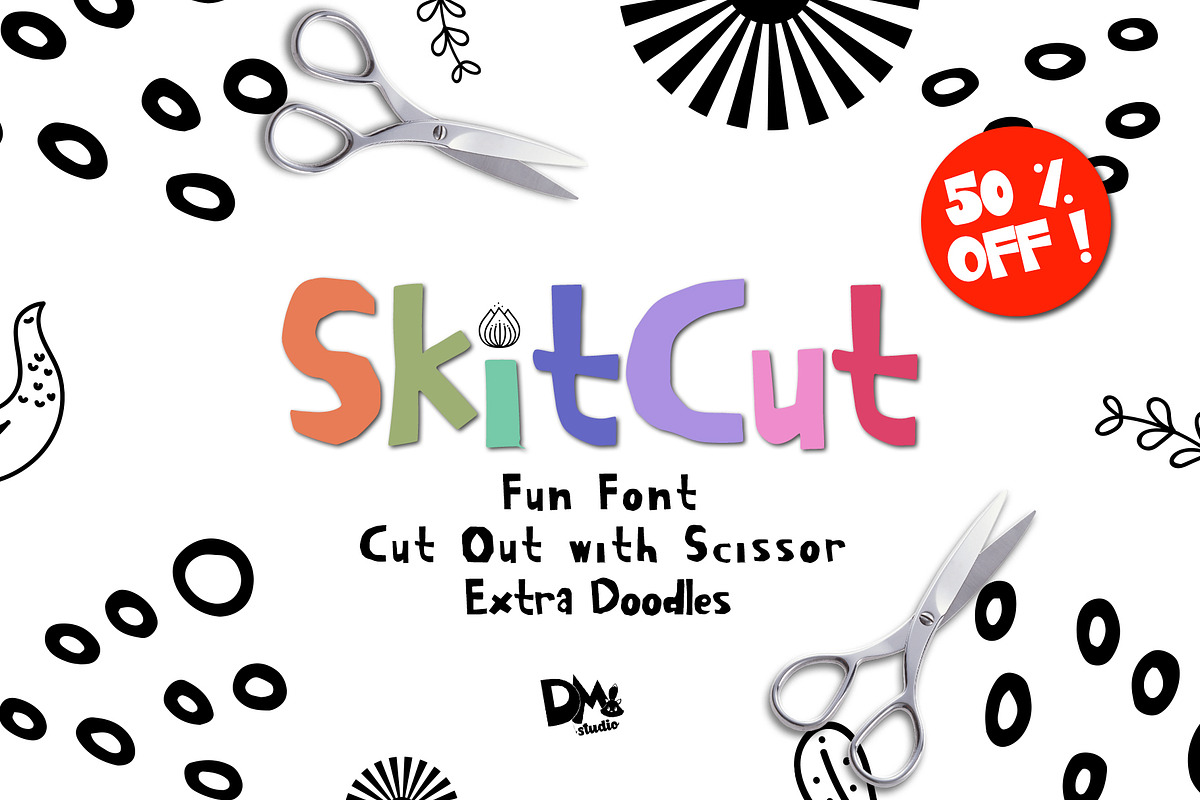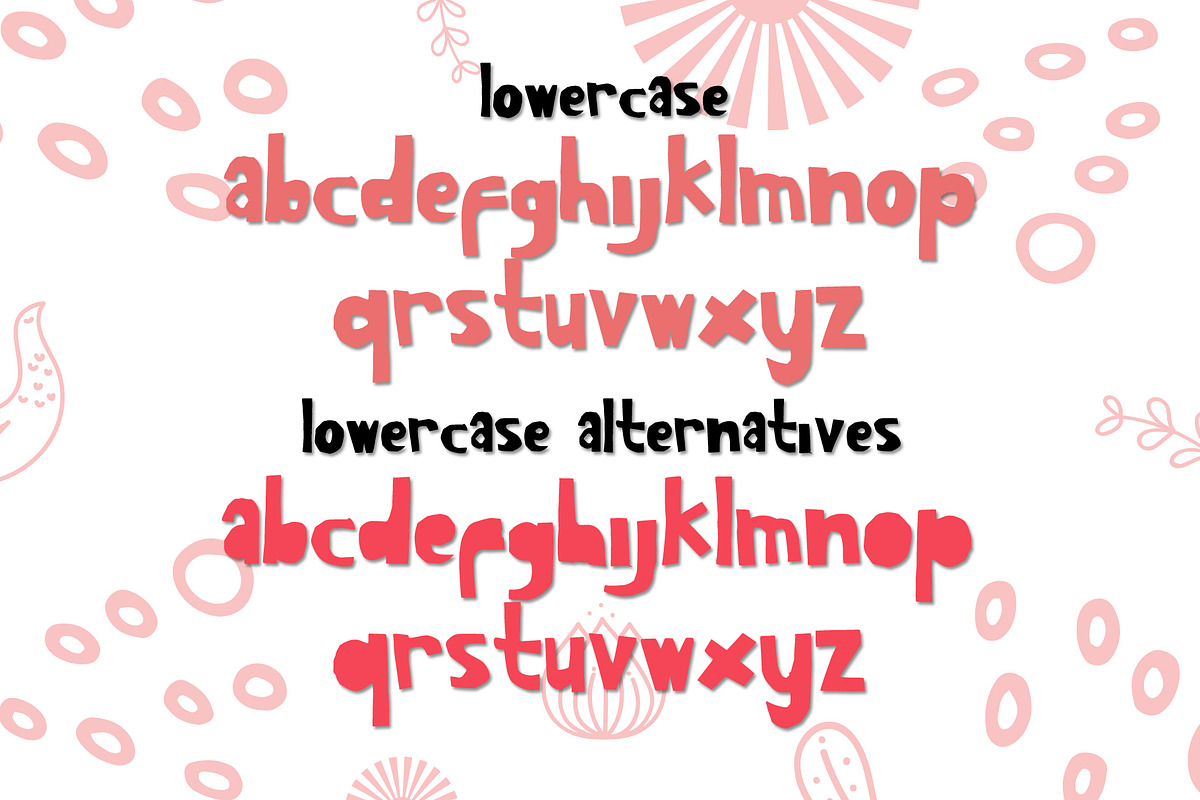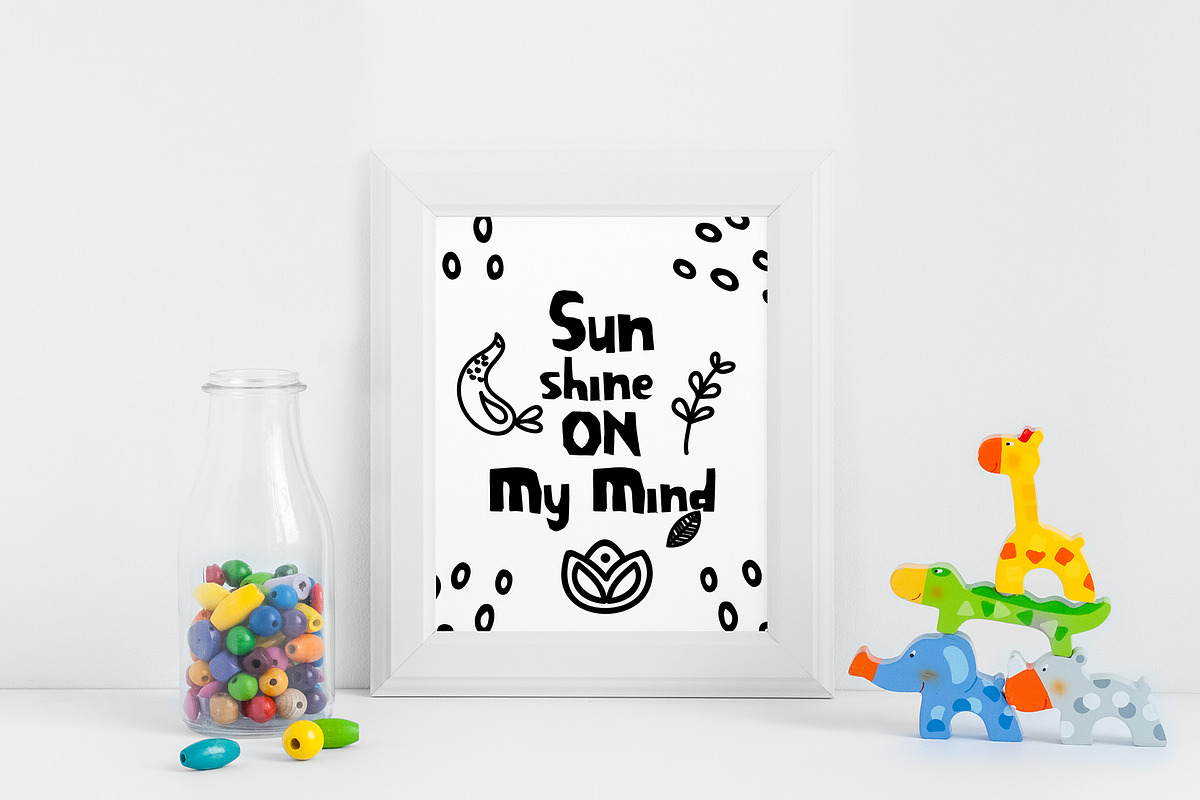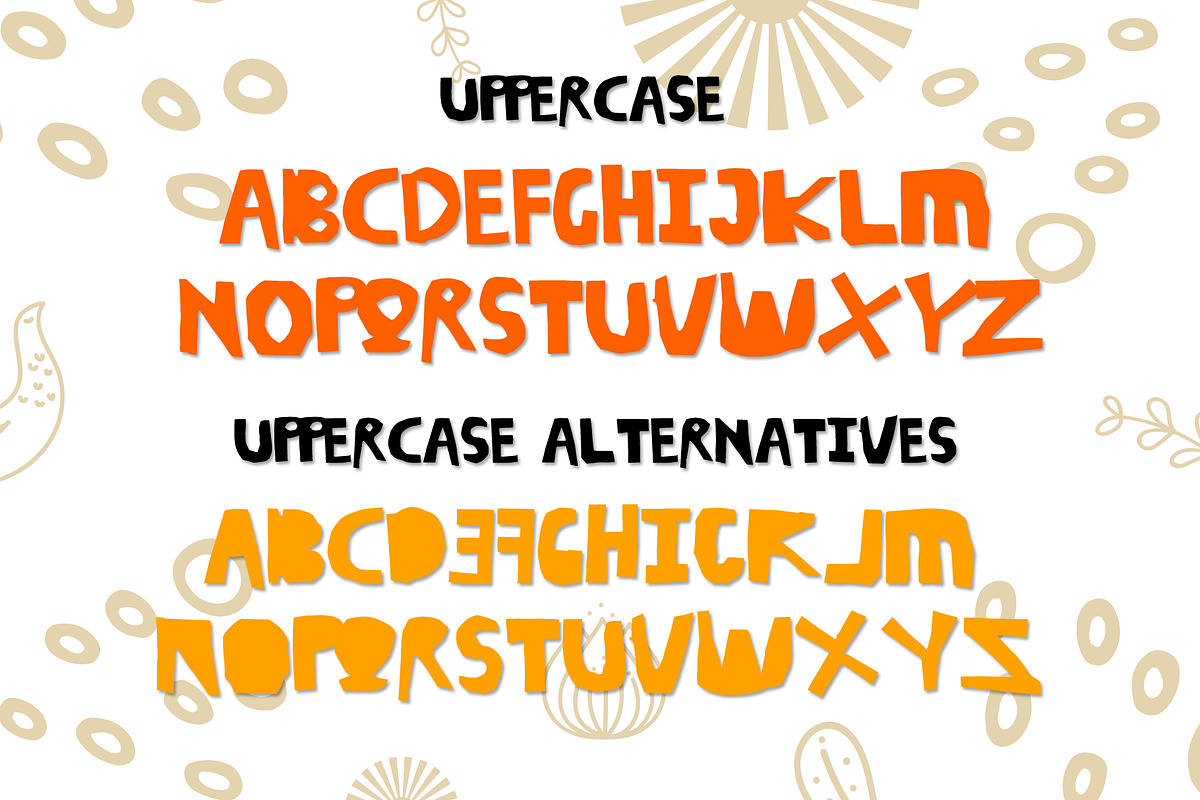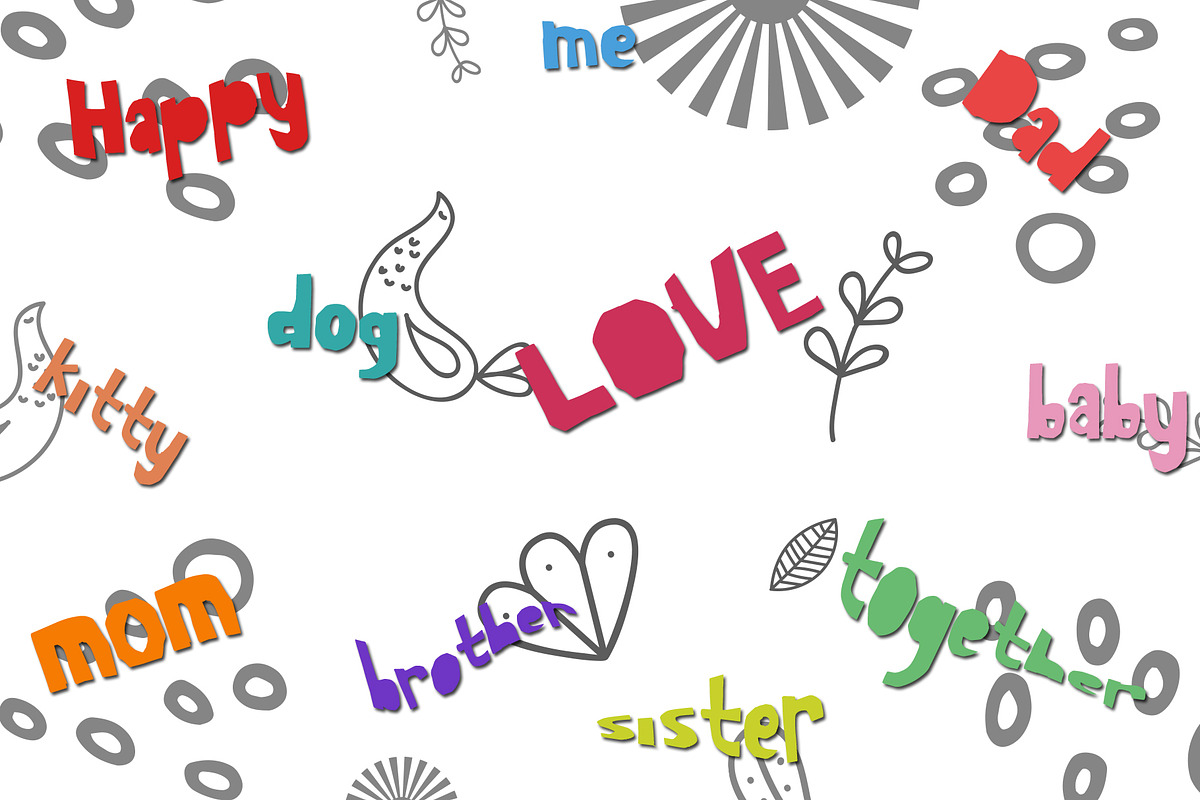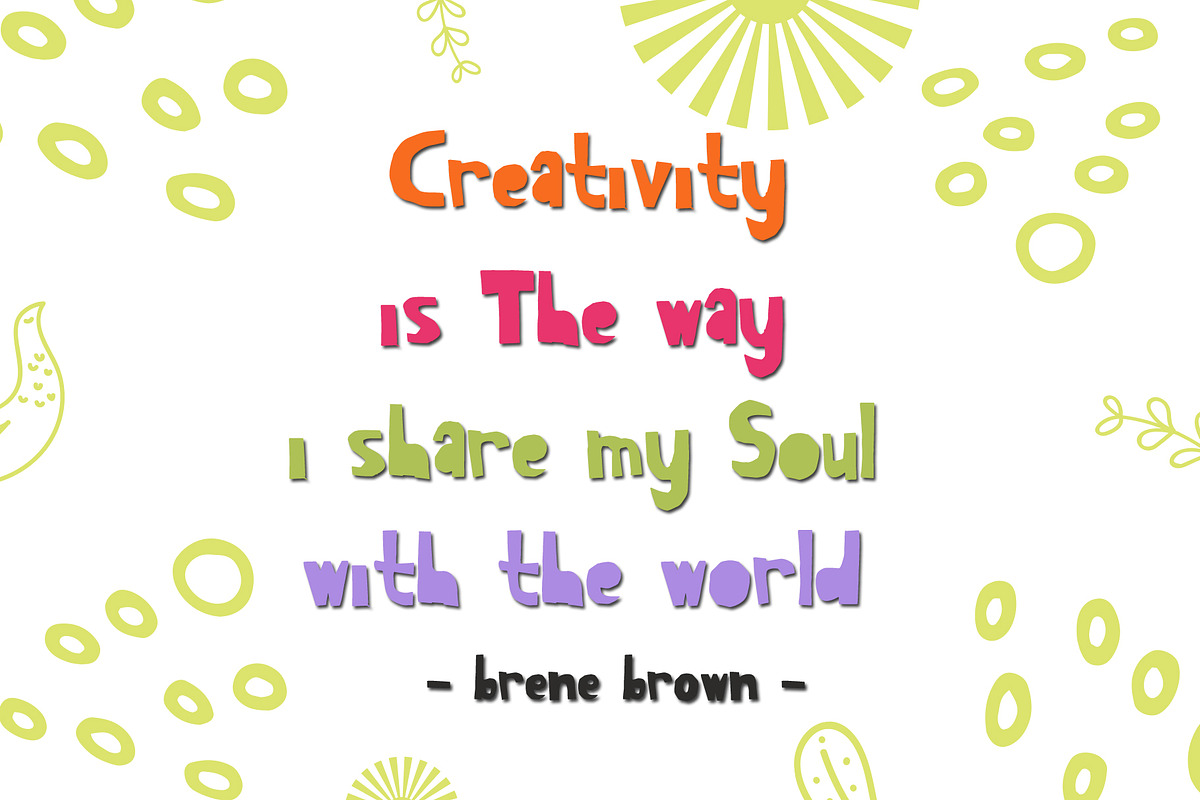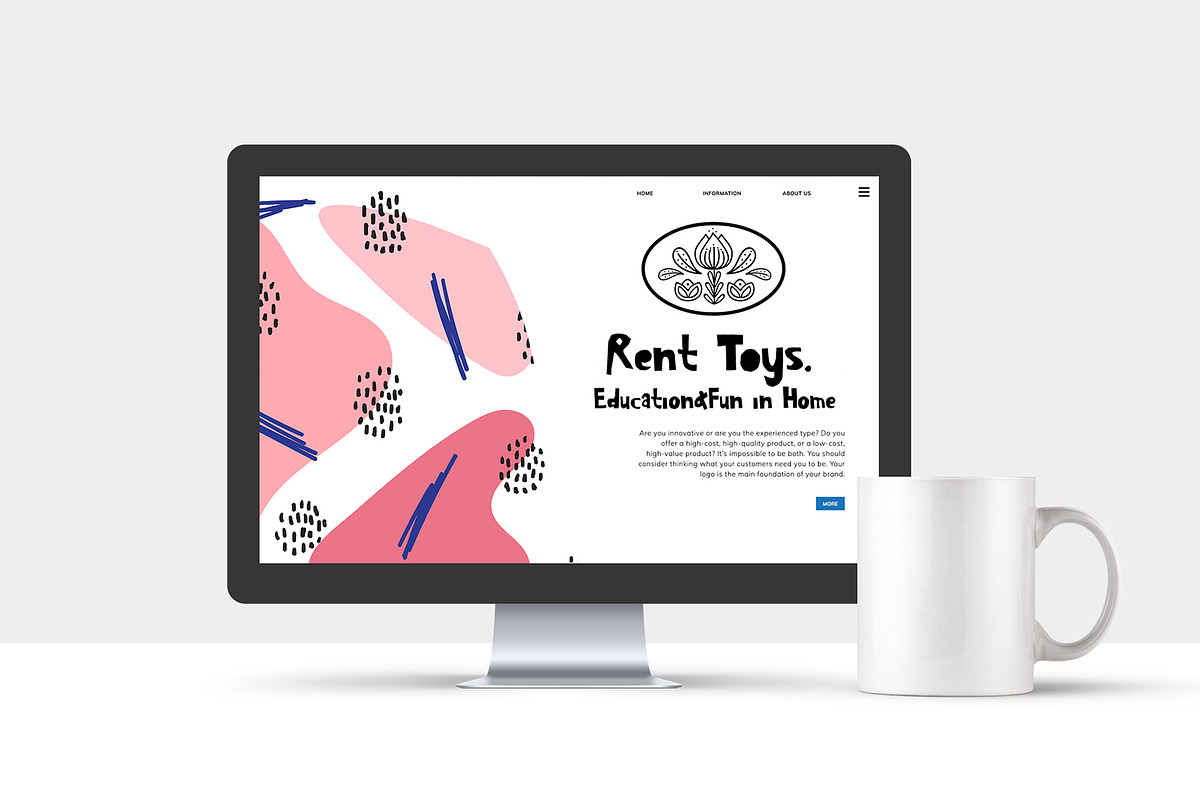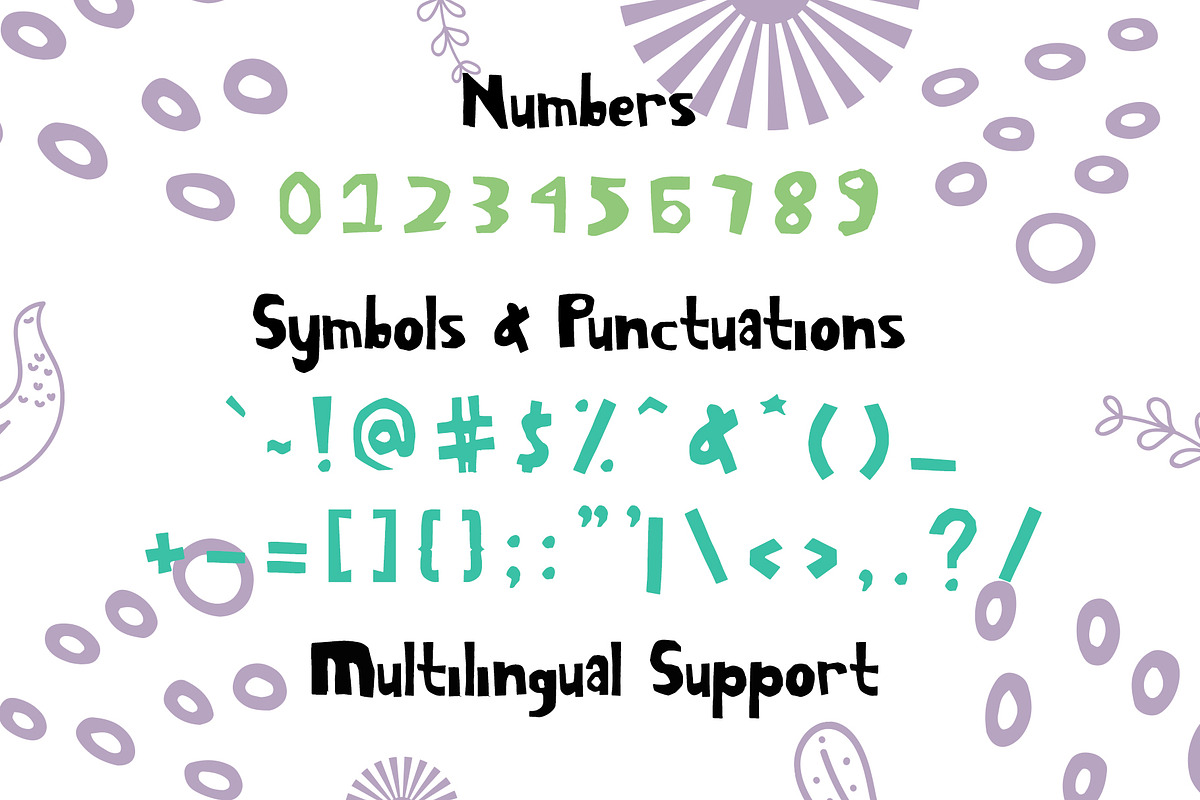
SkitCut - Fun Cut Font
SkitCut is a childish, quirky and fun font, real made from the cut out of paper with scissor! Skit Cut inspired by children paper cutting art, that would be great for some kids stuffs, posters, cards, invitations, books, web headers and the other fun projects.
Uppercase & lowercase
Symbols and Punctuations
Multilingual Supports